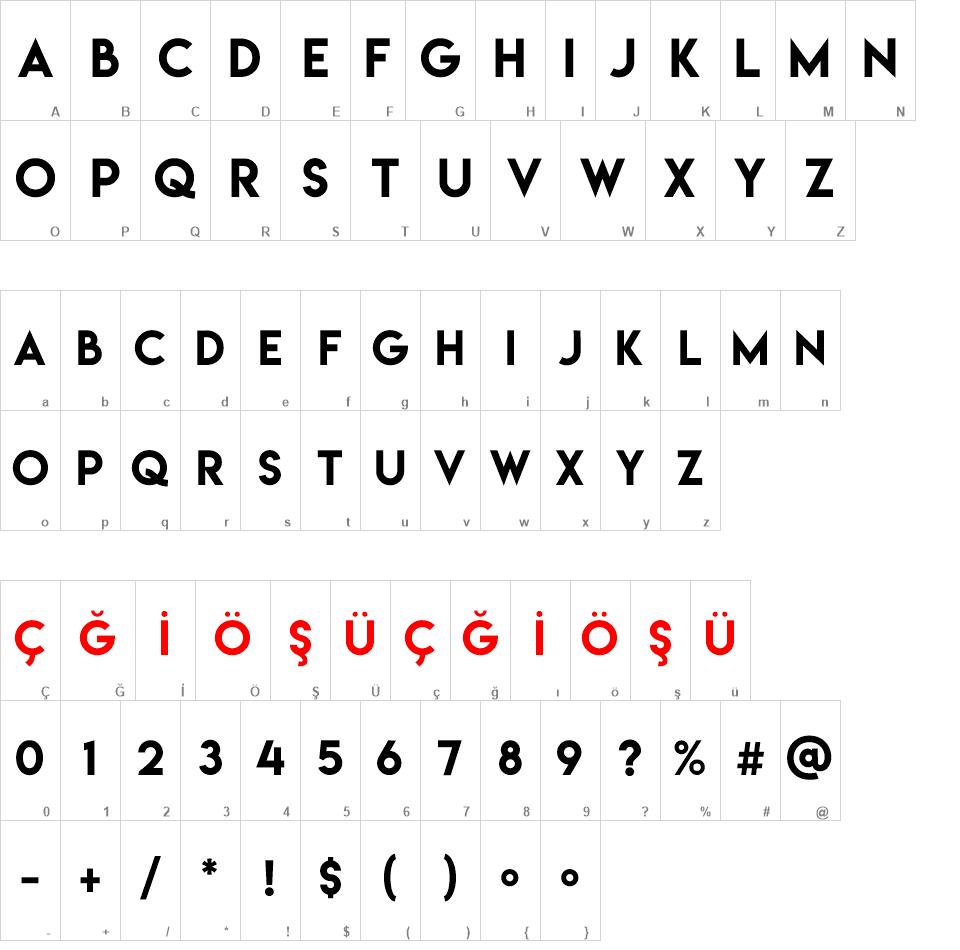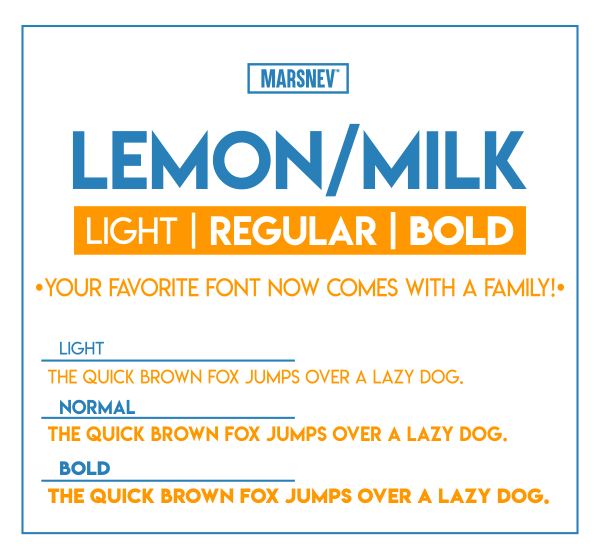
Lemon/Milk font
Lemon/Milk
Celebrating its 2.5 million downloads, I've developed Lemon/Milk into 3.0 version.
Fortunately, in this version, Lemon/Milk comes with the family!
Moreover, I have modified some letters such as "B", "Q", and "S" and some issues have been fixed.
Lemon/Milk font
In this version, Lemon/Milk comes with the family; regular, regular-italic, bold, bold-italic, light, light-italic.
Moreover, I have modified some letters such as "B", "Q", and "S" and some issues have been fixed.